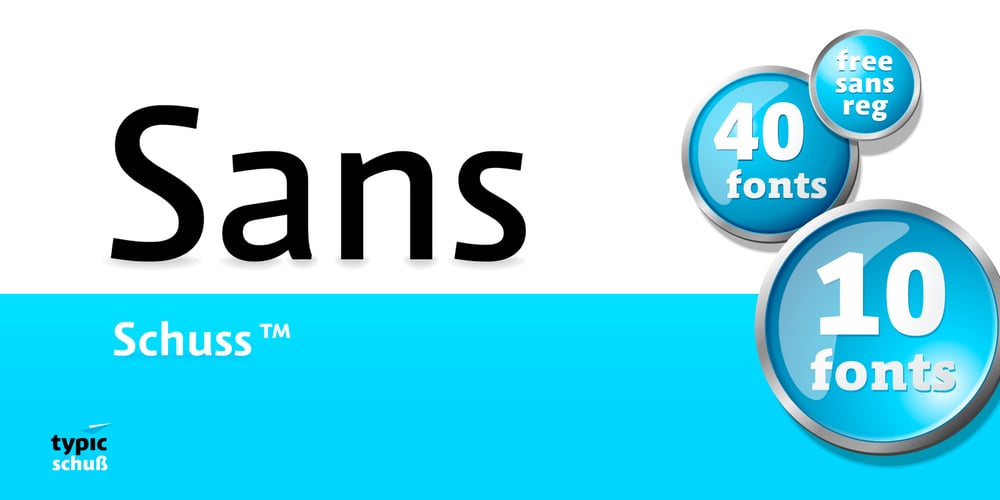
Schuss Sans PCG Font Family was designed by Jochen Schuss and published by typic schuss. Schuss Sans PCG contains 10 styles and family package options. I was working about 10 years exclusively for a type company. Based on my experiences, I built this superfamily. Schuss™ Sans PCG is a humanistic sans-serif with a little contrast. Small Caps, greek and cyrillic are included. Also tab, prop, lining, old style and small cap figures. It’s a typeface with clear and open characters. All complicated shapes are cleaned and simplified with a bit elegance. Schuss™ Slab Pro is a slab serif, based on the Schuss™ Sans. Schuss™ News Pro is the modeled style between Schuss™ Slab Pro and Schuss™ Serif Pro. Schuss™ Serif Pro is the antiqua shape. Additionally all serifs are cleaned up. There is just one-side-serif in the “n” for example. Tab figures (except small caps), mathematical signs and currency symbols have a width system accross all styles and weights.